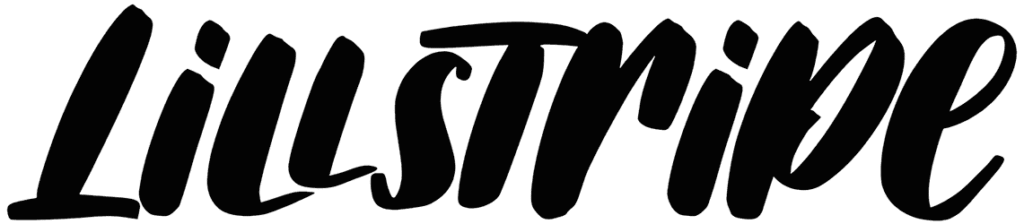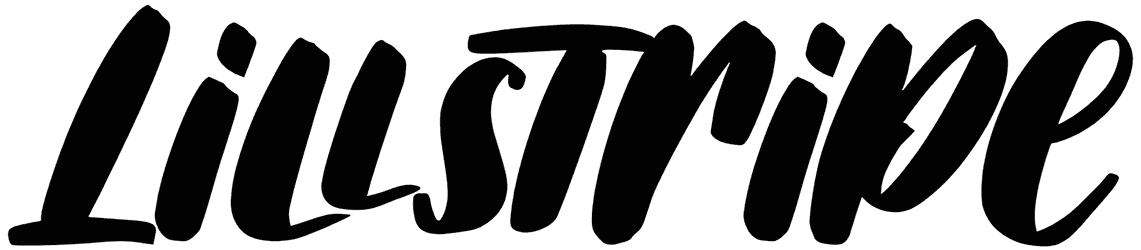
Lillstripe Font
Lillstripe font is like a piece of art that you can write with, injecting a sense of life and energy into your writing. This brush font, with its smooth curves and varying thicknesses, can create a unique, organic feel that sets you apart from competitors.
So whether you want to add a touch of whimsy to your brand identity or make eye-catching headlines and social media posts, this script font can convey a wide range of emotions.